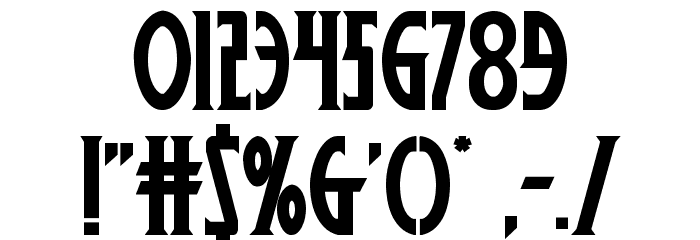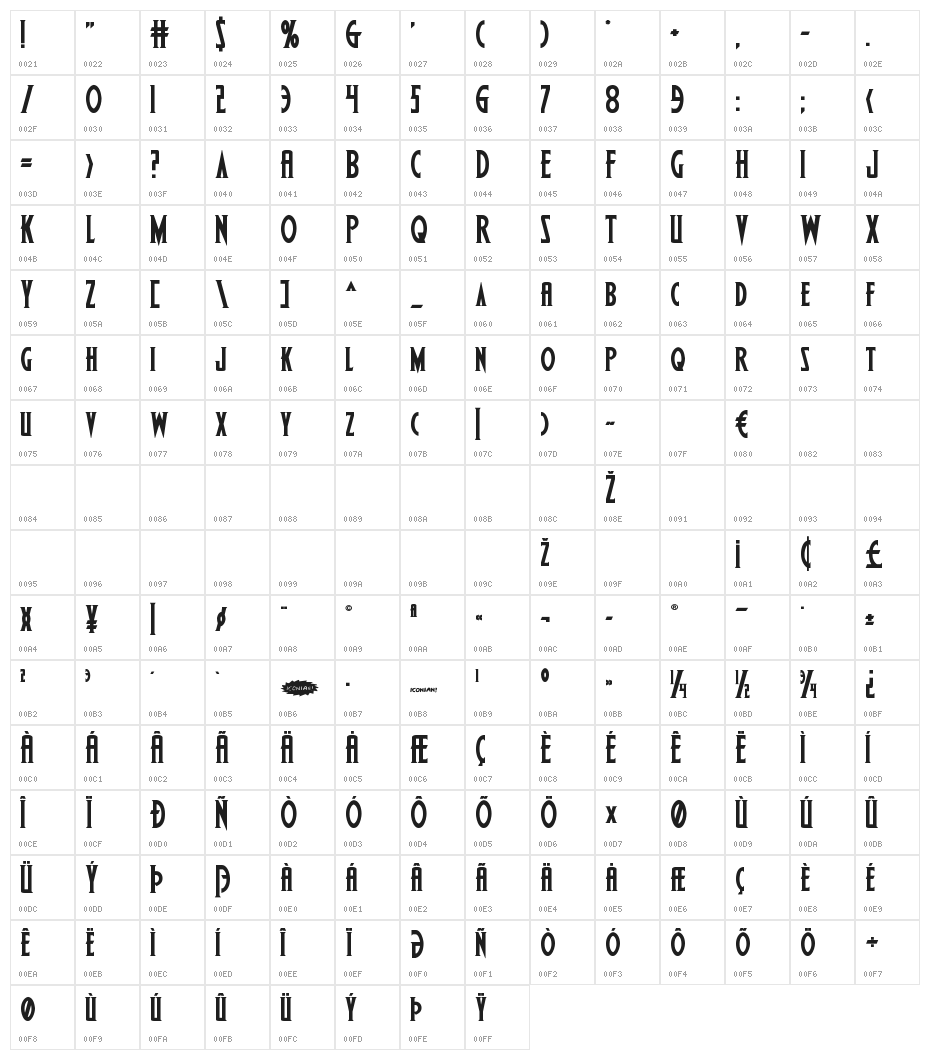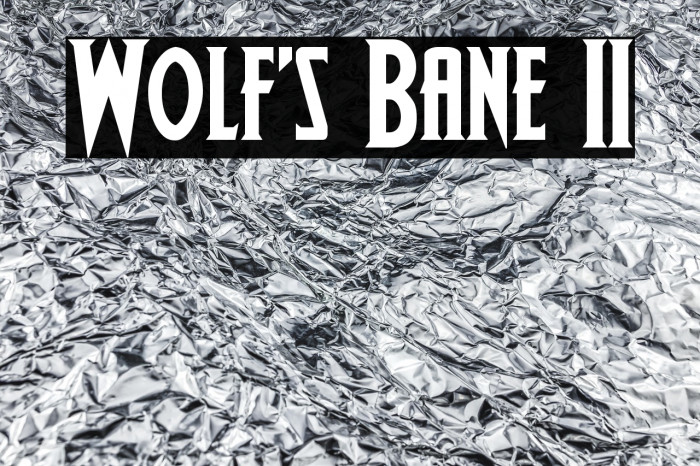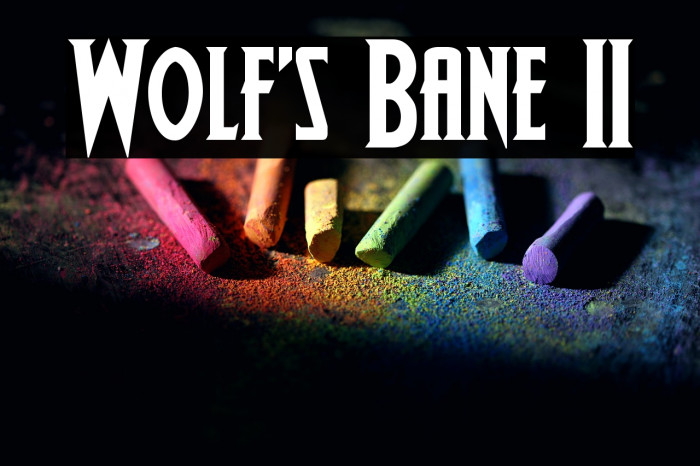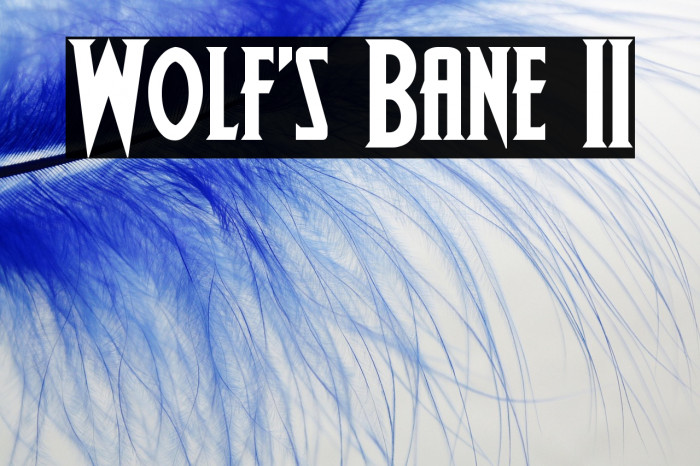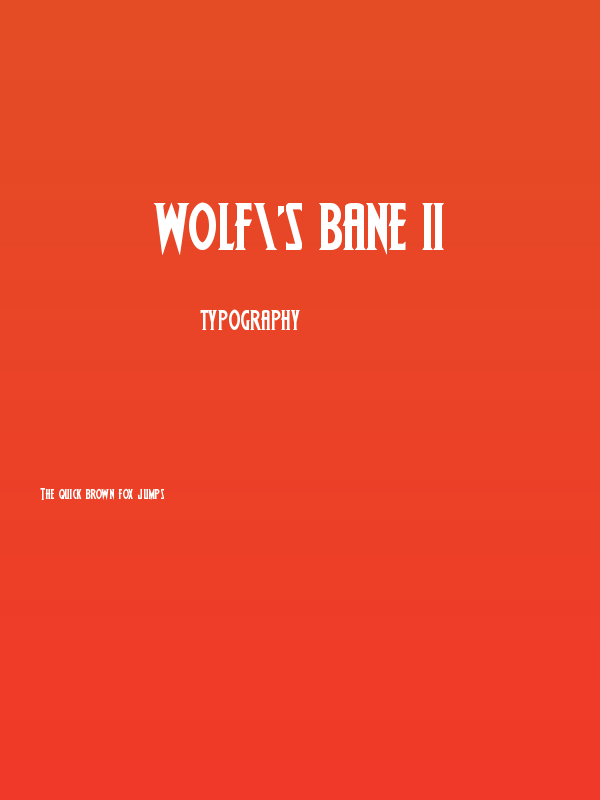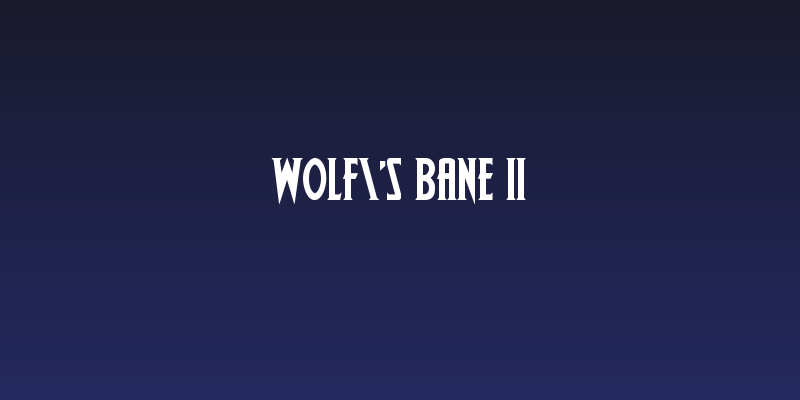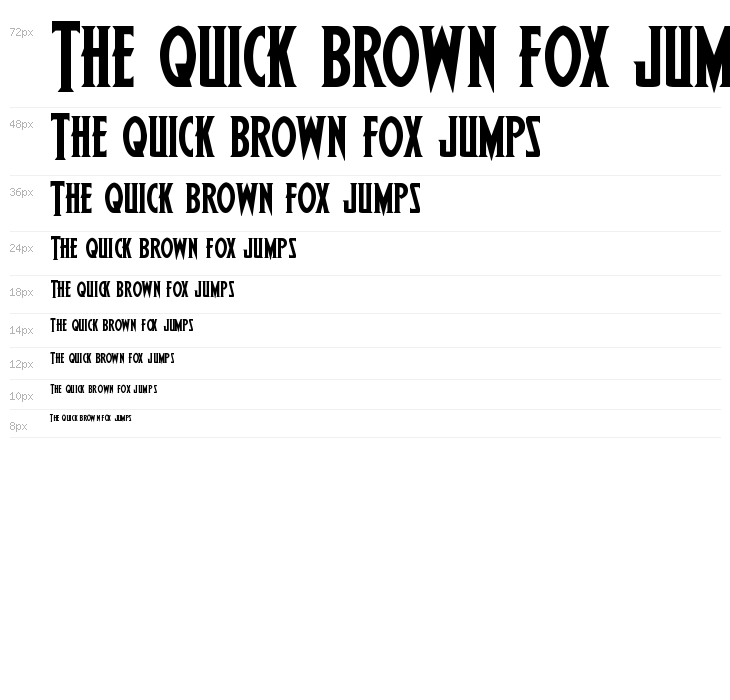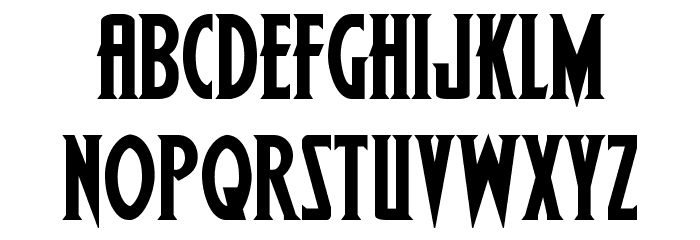
Wolf's Bane II Font
Wolf's Bane II Description
This font features a bold and striking design with sharp, angular edges and a strong presence. The uppercase letters are tall and commanding, while the lowercase letters maintain a consistent style that complements the uppercase. The numbers are equally bold, ensuring readability and impact. Special characters are designed with the same angular and dynamic style, making them stand out. The overall appearance is reminiscent of gothic or medieval influences, lending a dramatic and intense feel to the text.
| Overall Style | Gothic, Dramatic |
| Proposed Projects | Ideal for projects requiring a strong visual impact, such as movie posters, book covers, or branding for edgy or alternative products. |